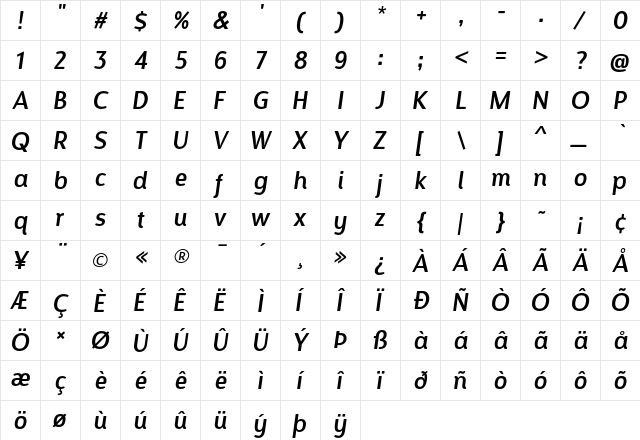
Designosaur Italic
| Foundry | Sergiy S. Tkachenko |
| Designer | Sergiy S. Tkachenko |
Design Context for Designosaur Typeface
Designosaur takes a measured approach to typography — its balanced proportions and neutral character make it a reliable workhorse for both digital and print work. The dynamic lean of this cut emphasises speed and emphasis in any layout.
Pro Tip: Try Designosaur for annotation and caption copy alongside an upright companion — the contrast in angle creates a dynamic but ordered typographic system.